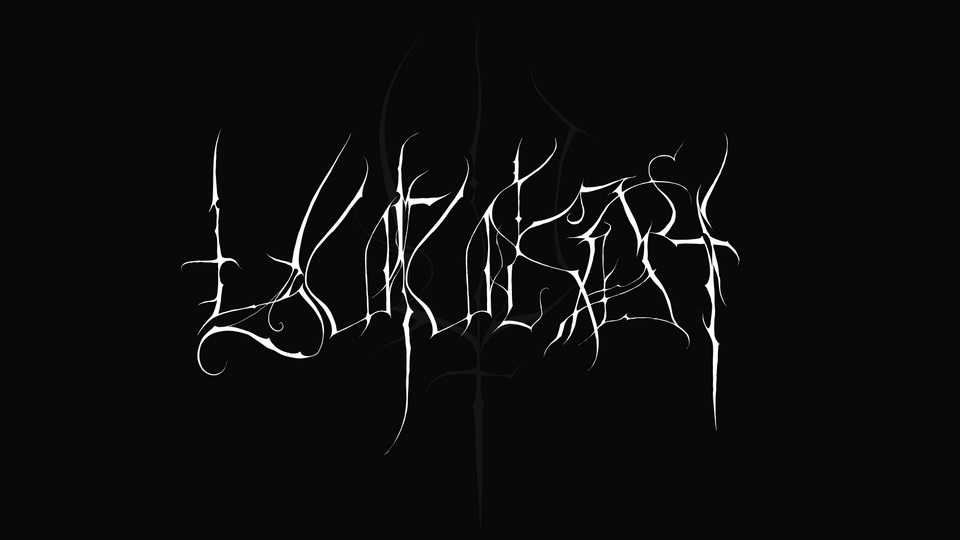
Download Tsyhyckach font, a brutal and sharp hand lettered blackletter typeface with decorative shapes. It’s unique look makes Tsyhyckach font a perfect choice for metal band logos, underground prints, concert posters and album artworks.